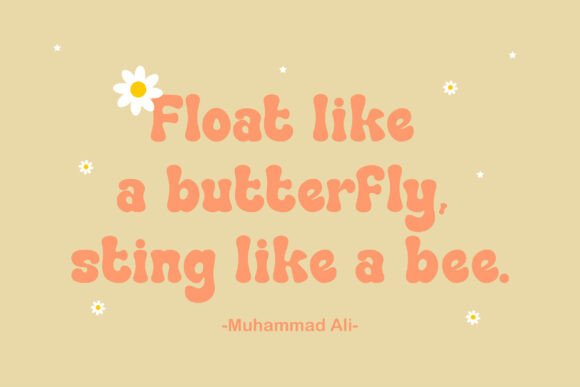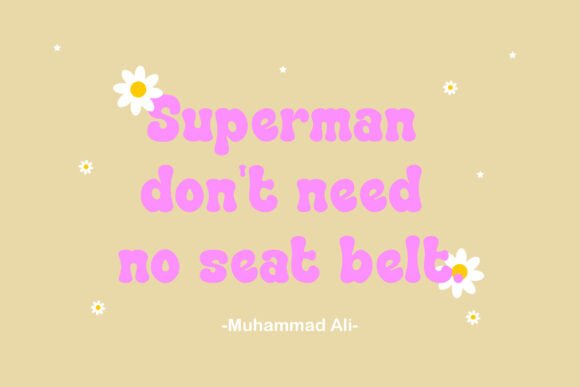
Groovy Magic Font
Groovy Magic is a fun and playful font, inspired by bold retro typography. It’s perfect for designs that need a playful and fun accent. Groovy Magic is suitable for book covers, posters, packaging, merchandise, logos, and more. Its bold strokes and playful curves make it perfect for adding a vintage flair to any design.